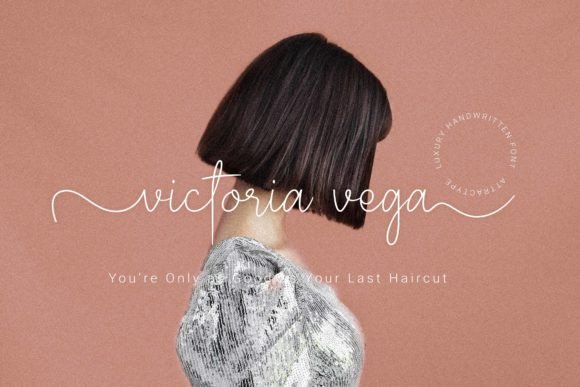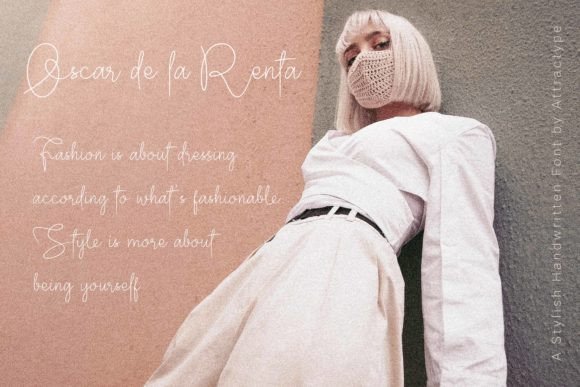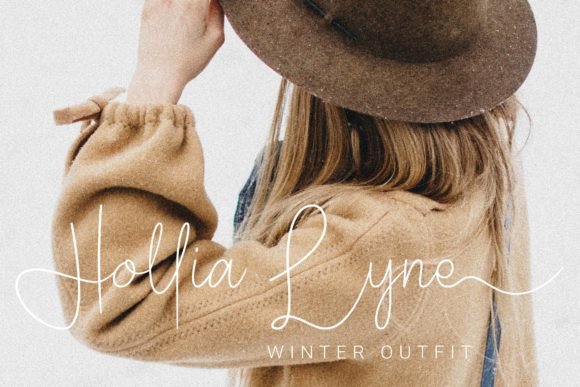
Introduction to Scriptone Font
Scriptone is a sweet and delicate handwritten font.
Dainty and elegant, this font will be ideal for writing wedding invitations, cards, or any other design that may need a romantic, personalized touch Scriptone is PUA encoded which means you can access all the glyphs and ligatures with ease.